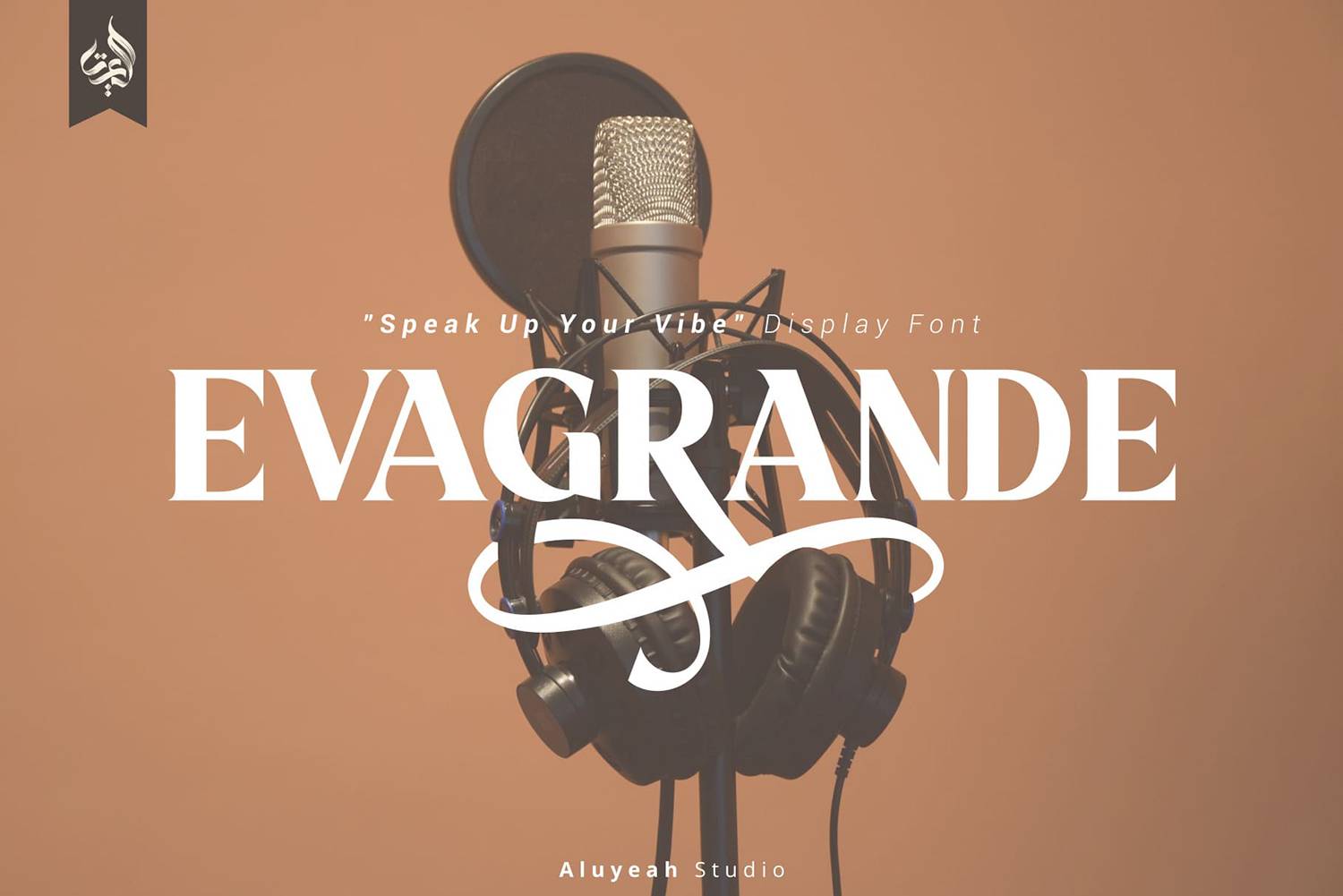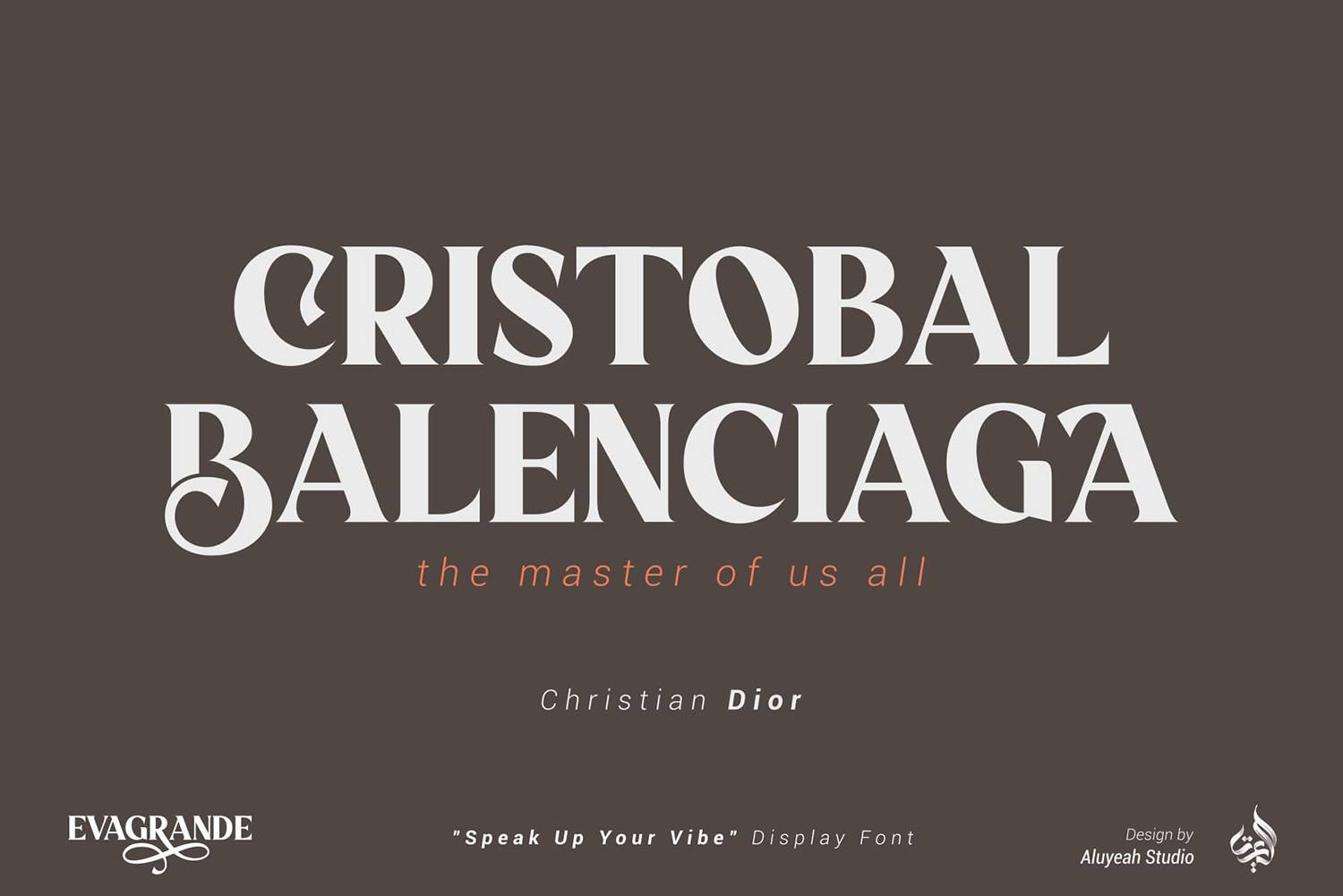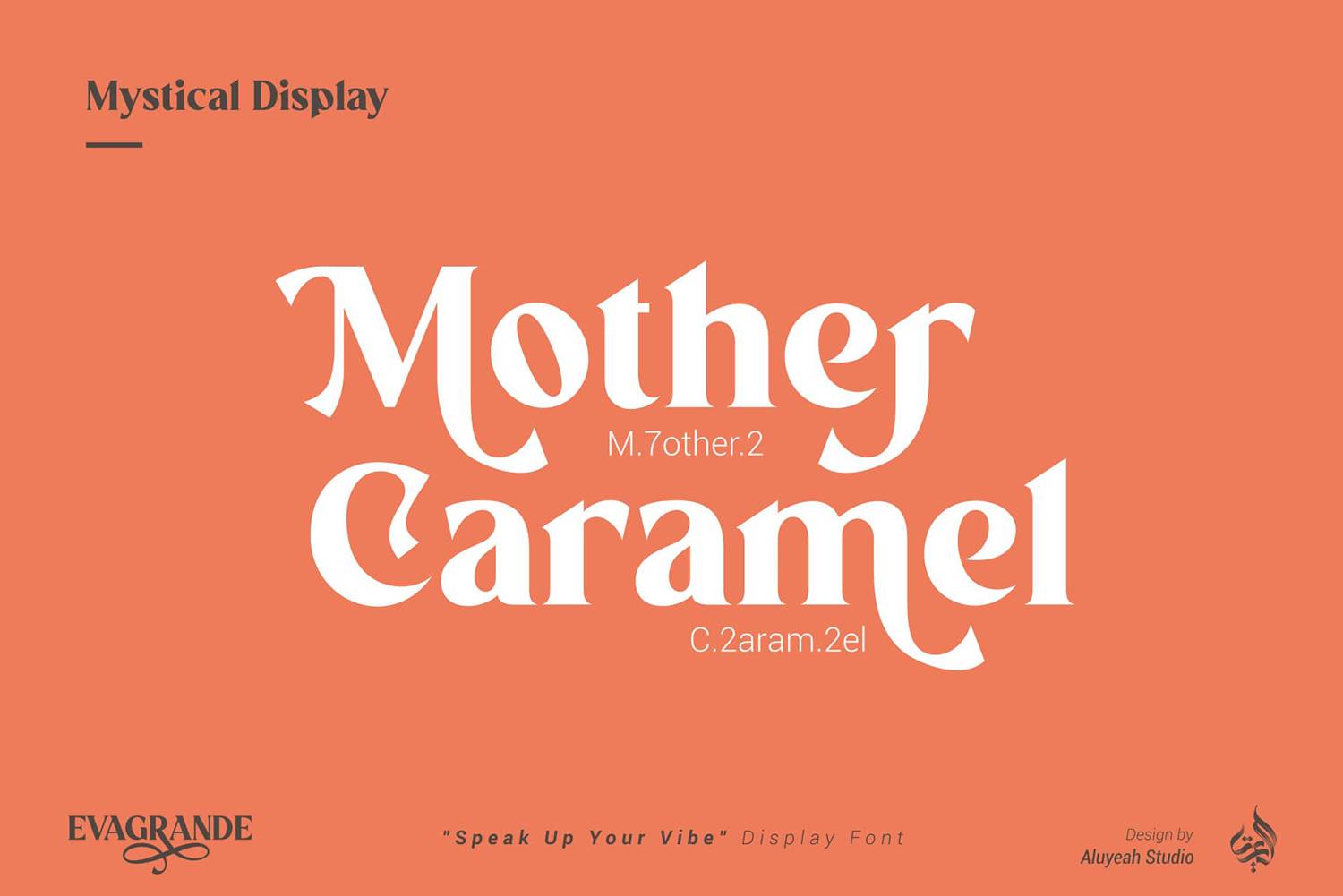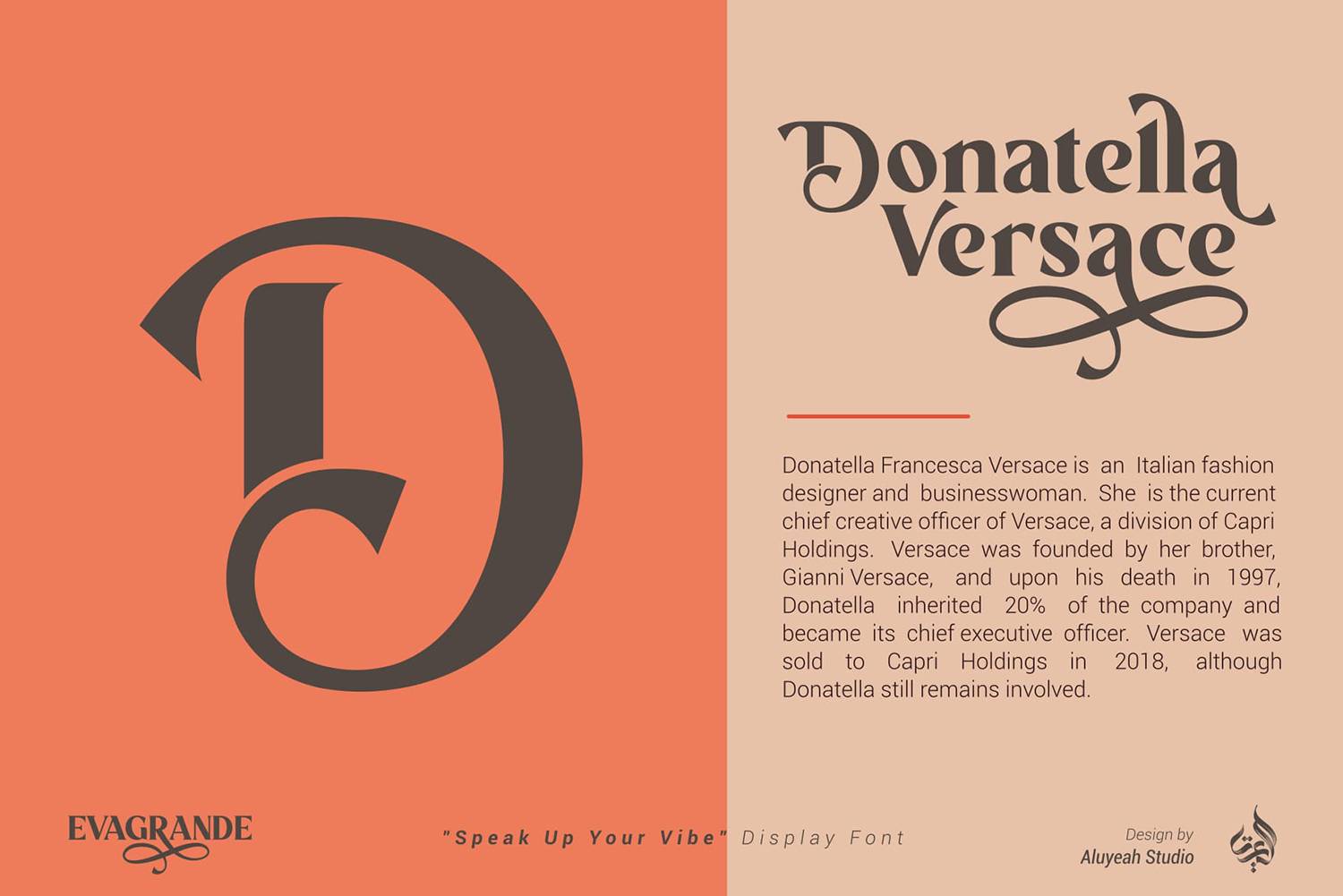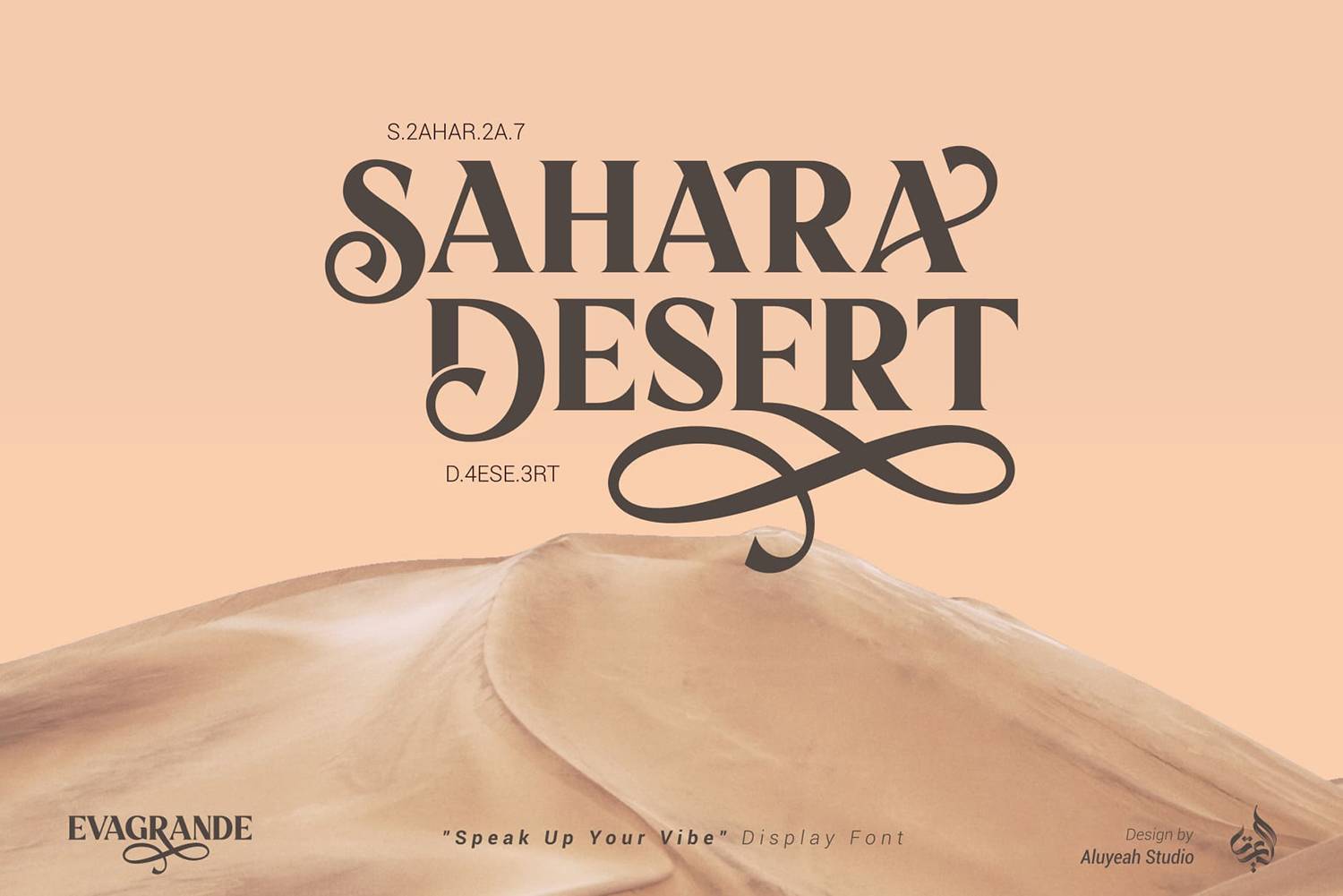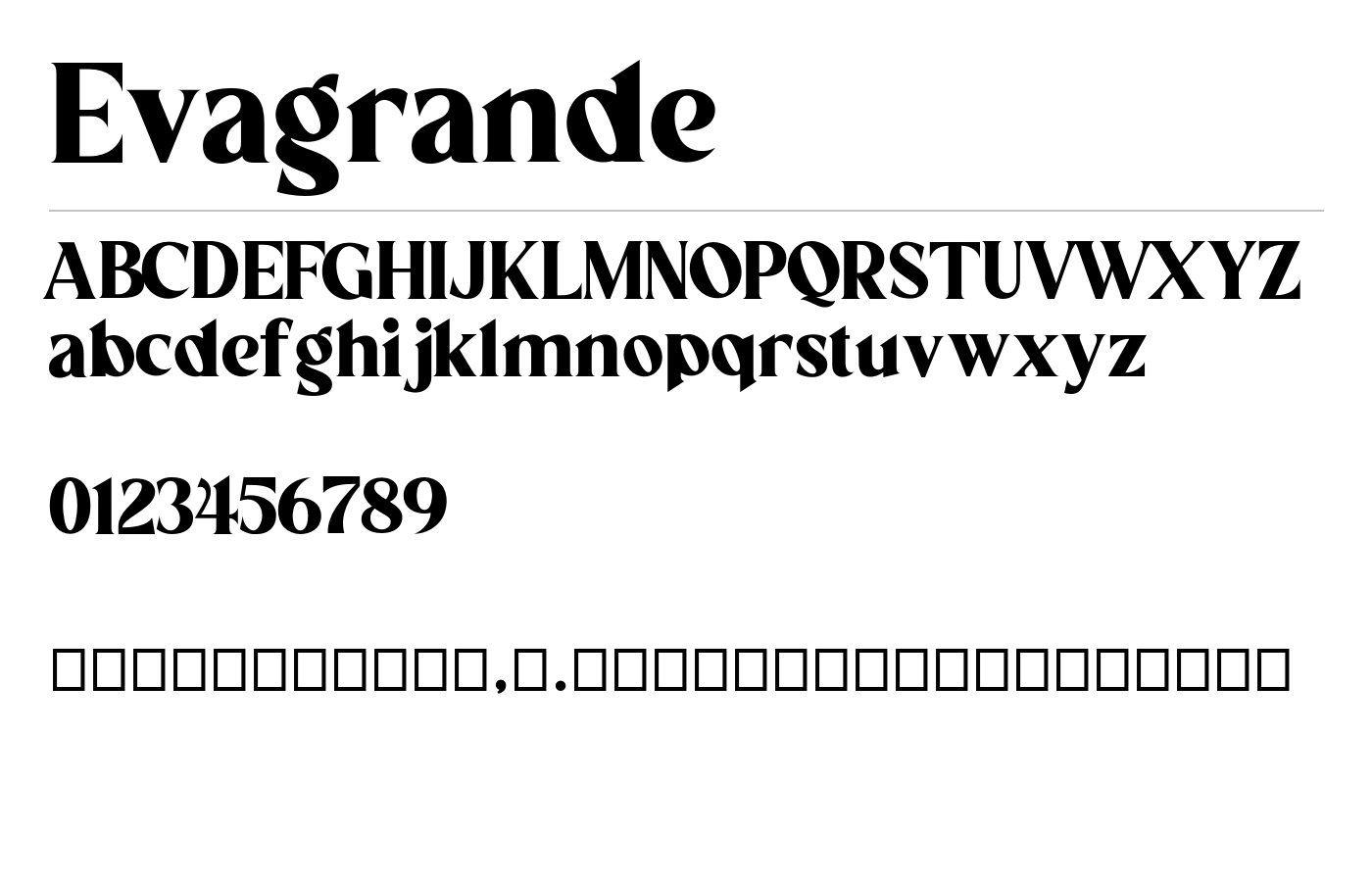
Evagrande is a bold serif typeface with a strong modern Didone influence, featuring high contrast between thick and thin strokes and sharp, bracketed serifs. Its distinctive letterforms, such as the single-story lowercase "g" and unique tail on the "Q," give it a sophisticated and elegant feel, making it ideal for luxury branding, editorial headlines, and formal designs where a commanding presence is needed. This font works best in display settings where its refined personality can shine through clearly.
Evagrande Font
About Evagrande Font